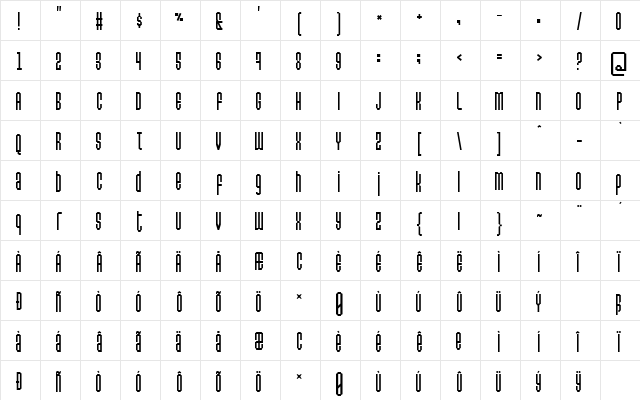
Permanent daylight Regular
Design Context for Permanent daylight
Permanent daylight is a composed and adaptable typeface that performs quietly and consistently across a wide range of design contexts. Its slender proportions lend an understated elegance to any composition.
Pro Tip: Use Permanent daylight in both headline and body roles to test its range before committing to a single application.